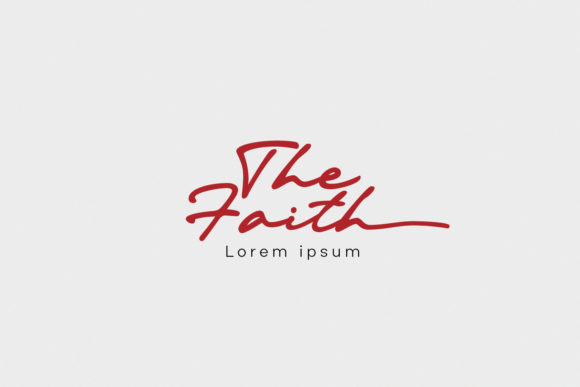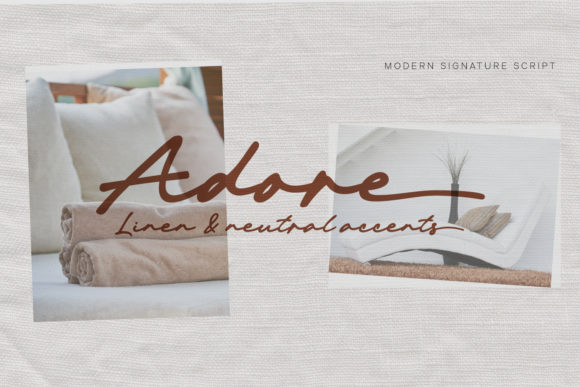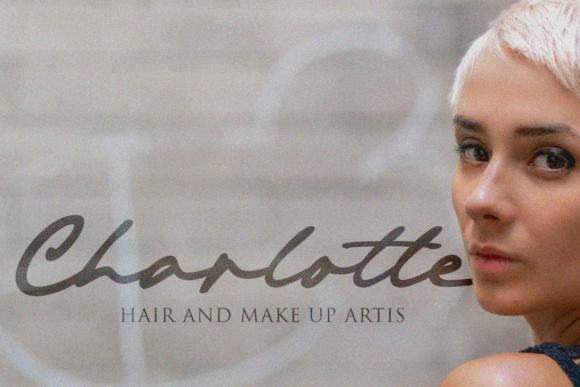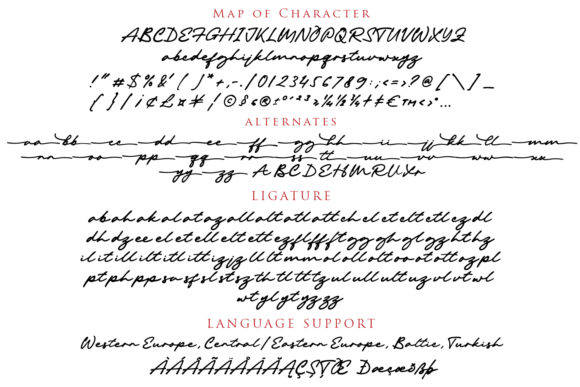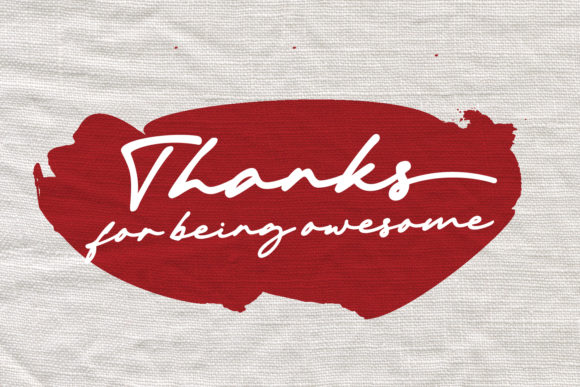
About Michigan Font
Michigan is a stunning and cursive script font that adds a touch of elegance and charm to any design. Its flowing and curvaceous letterforms create a beautiful handwritten look that is perfect for a variety of projects. Whether you’re working on wedding invitations, thank you cards, quotes, greeting cards, logos, or business cards, Michigan is sure to make your designs stand out.
The cursive nature of Michigan’s script font gives it a sophisticated and graceful appearance. The letters connect seamlessly, creating a smooth and continuous flow that adds a sense of fluidity and beauty to your text. Its elegant and refined style makes it particularly well-suited for projects that require a handwritten touch, where it can add a personal and intimate feel.
One of the notable features of Michigan is its PUA encoding. With PUA (Private Use Area) encoding, you can easily access all of the glyphs and swashes that are included with the font. This allows you to add decorative elements, alternate characters, and stylish swashes to enhance the visual appeal of your designs. The PUA encoding ensures that you have complete control over the customization of your text, making it easy to create unique and eye-catching compositions.
Michigan’s versatility shines through in its ability to enhance a wide range of designs. Whether you’re working on formal wedding invitations, heartfelt thank you cards, inspiring quotes, charming greeting cards, professional logos, or elegant business cards, Michigan adds a touch of sophistication and style. Its captivating cursive script is sure to leave a lasting impression on your audience and elevate the overall aesthetic of your designs.
In summary, Michigan is a dazzling and cursive script font that adds elegance and charm to various design projects. Its flowing and curvaceous letterforms create a beautiful handwritten look that is perfect for wedding invitations, thank you cards, quotes, greeting cards, logos, business cards, and more. With its PUA encoding, you can easily access the additional glyphs and swashes, allowing for effortless customization and creative freedom. Michigan’s versatility and timeless appeal make it a valuable asset in your design toolkit.